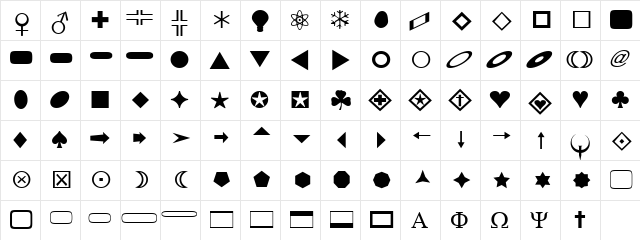
FnT_BasicShapes1 Normal
Design Context for FnT_BasicShapes1 Typeface
FnT_BasicShapes1 takes a measured approach to typography — its balanced proportions and neutral character make it a reliable workhorse for both digital and print work.